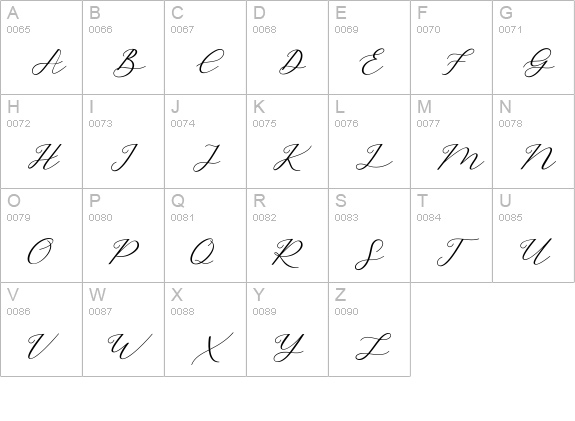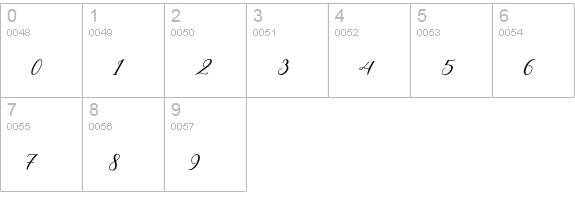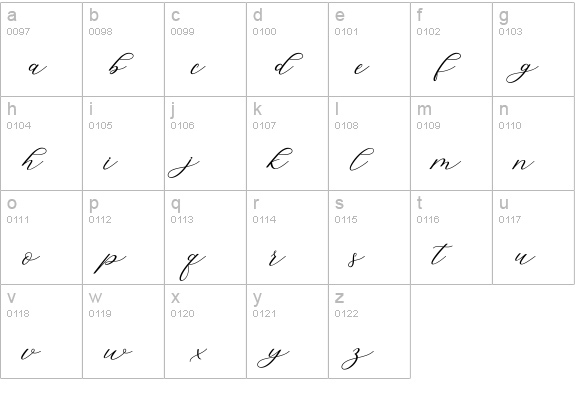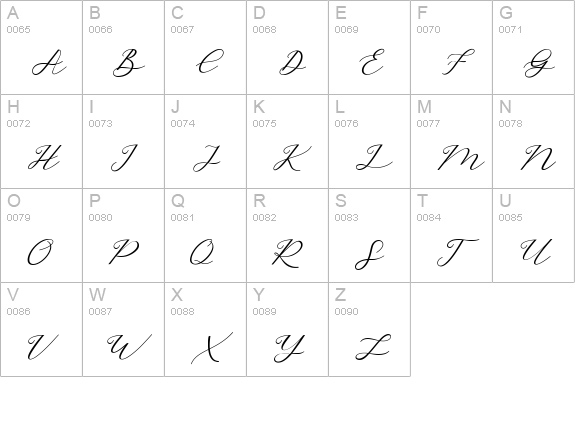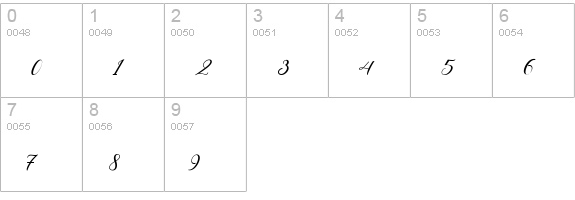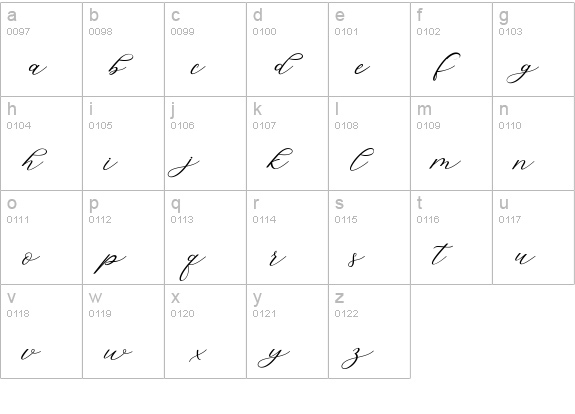
Hello Sarrah is a demo font in the Script > Calligraphy category, designed by Creative LAB. It has been downloaded 617 times and is available for Windows, Mac and Linux.
Hello Sarrah font is a charming and elegant typeface that exudes a sense of sophistication and style. Its graceful letterforms and flowing lines make it perfect for a wide range of design projects, from invitations to branding to social media graphics.
With its timeless appeal and versatile design, Hello Sarrah font is sure to elevate your creations and leave a lasting impression on your audience. Download it today and add a touch of elegance to your designs!